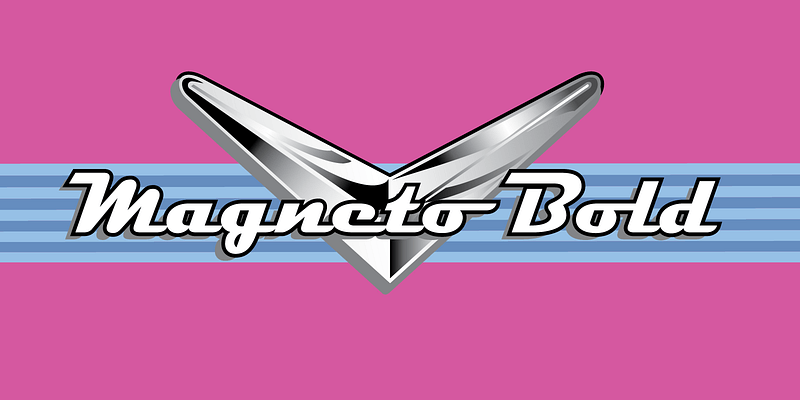
Leslie Cabarga has returned to the streamlined scripts prepared by industrial designers at mid-century for the inspiration of this Font Bureau display series. The Magneto trio recall the chrome-strip lettering laid over the rounded shapes of enameled refrigerators and automobile trunks in the ’30s and ’40s by a jaunty, self-confident American industry that knew it was going places, doing things, and changing the world; FB 1995
Zavier Cabarga has been drawing pictures and pictures of letters all his life. “Drawing requires an inherent feel for anatomy and proportion. Lettering does also, as I believe that our ancient letterforms are based upon human proportions,” Zavier said. “Inspired at first by comic book lettering, I began copying logos and display type out of magazines. At 15, I stripped up film negatives to form a crude but serviceable typositor font.”
Working under the name Handy Lettering Co., for many years Zavier designed hand lettering for advertising clients while working full-time as an illustrator. “Drawing illustrations has always seemed difficult—lettering is easy and fun,” Zavier said. “Working for the past 25 years on the Macintosh has enabled me to create computer fonts, which in many ways is the most satisfying thing I do. Typing a letter or manuscript with a font I’ve created makes me feel like God.”